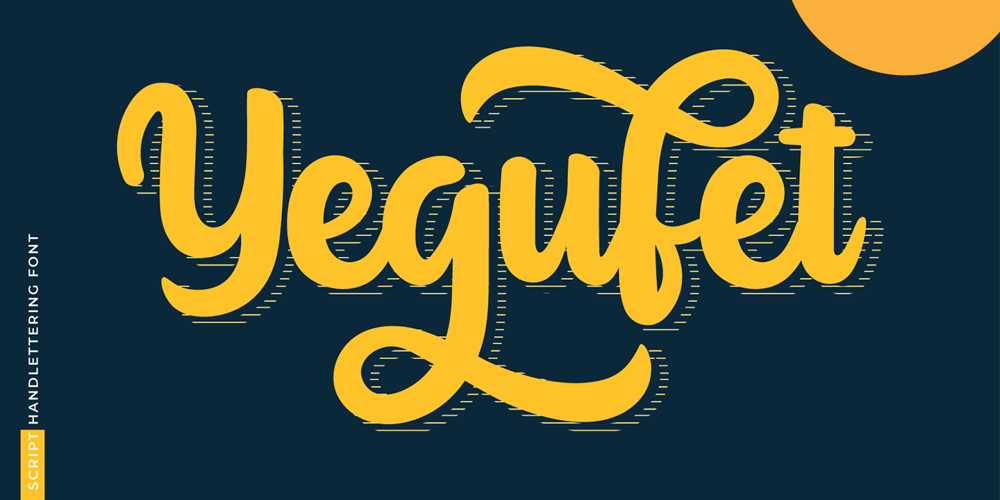
Yegufet Font Family was designed by Rozikan and published by Twinletter. Yegufet contains 1 styles and family package options. Introducing our newest font Yegufet its namemade in original handwriting that has a young, powerful and energetic character, of course it is very suitable for use for modern and vintage projects, the beautiful and beautiful letterforms make this font look charming for you to use in any of your design projects.This magical font also offers the beauty of abstract typography harmony for a wide variety of design projects, including natural handwriting in digital form for designs, quote designs, for social media business designs, advertisements, trademarks, food and beverage promotion banners, text, posters, a signature, and all designs require handwriting or whatever design you want.This font is equipped with uppercase, lowercase, numbers, punctuation marks, swhases and several variations on each character including multi-language.==================================================This font is best suited for open type friendly applications. How to get alternative glyphs from open type fonts: http://adobe.ly/1m1fn4YPUA Character Code – Fully accessible without additional design software.do not hesitate anymore start using this font. and Feel free to send any message you want to convey.